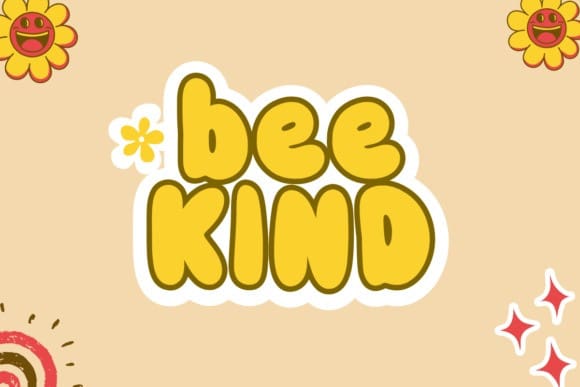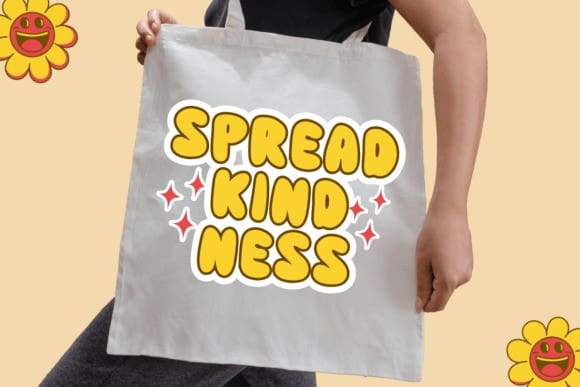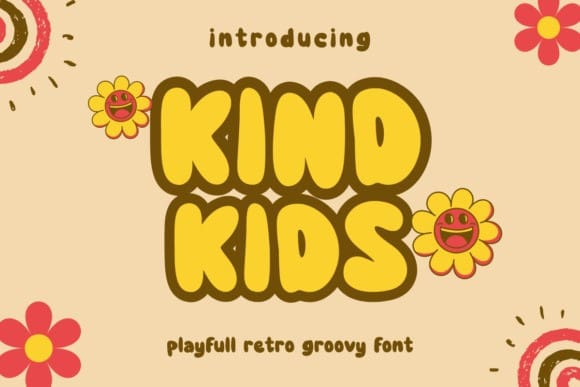
Kind Kids Font
Kind Kids Font is a fun and retro font, it’s perfect for designs that need a playful, cheery accent. KindKids is suitable for book covers, posters, packaging, merchandise, logotypes, and many more!